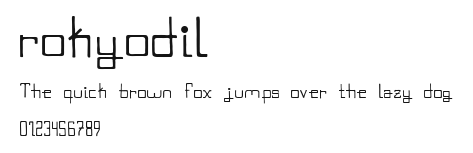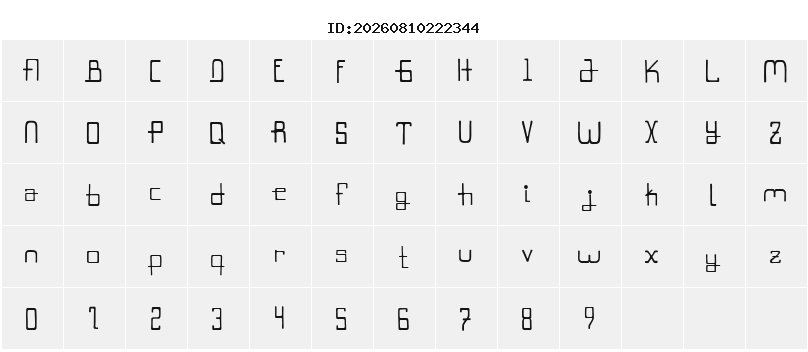
• Font Name: rokyodil
• Designer: odile morales ramirez
About rokyodil.ttf
rokyodil.ttf is a modern, elegant sans-serif font designed for ultimate readability and visual harmony. Perfect for branding, headlines, web design, and print materials.